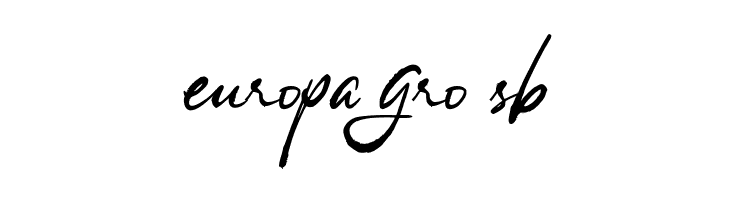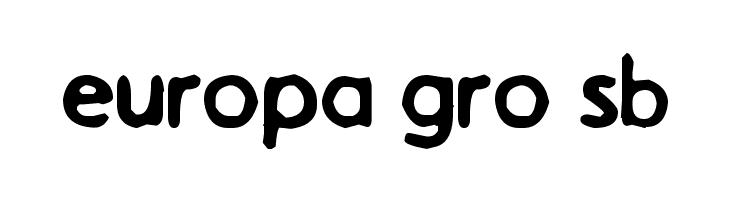
Oldstyle Small Caps HPLHS Font
A classic serif font with elegant, bold uppercase and consistent lowercase characters.
CameoAntique Font
A bold, decorative font with a vintage, three-dimensional style.
Catalogue Font
A playful, bold font with rounded edges and a hand-drawn style.
Angel Font
An ornate and decorative font with intricate swirls and embellishments.
OldStyle 1 HPLHS Font
A classic serif font with a vintage and elegant style.
AIFragment Font
A bold, geometric font with high contrast and a modern aesthetic.
Penelope Font
An ornate and decorative font with intricate swirls and embellishments.
Oldstyle Italic HPLHS Font
An elegant, classic italic font with a traditional and sophisticated style.
99 % OCCUPY Font
A bold, hand-drawn font with a playful and artistic style.
RusticBlackShadow Font
A bold, decorative font with a rustic, shadowed style and intricate detailing.
Fun Euro Original Condensed No. 1 [Demo] Font
A playful, hand-drawn font with a condensed and whimsical style.
2013 Demo Cadaver's Script Pre-release. Font
A bold, expressive script font with a hand-drawn, textured style.
dfdMiliciana Font
A bold, geometric font with a modern and impactful design.
ArrowheadLake Font
A bold, angular font with sharp, arrowhead-like serifs.
2013 Hexagonal Delight Heavy Italic Caps for PC Font
A bold, italic, gothic-inspired font with sharp, angular edges.
2013 Demo Hexagonal Delight Heavy Italic (Caps and numbers) for Mac Font
A bold, italicized font with sharp, angular strokes and a modern blackletter influence.
Pupil Caligraphic Font
A calligraphic font with fluid, hand-drawn strokes and an artistic appearance.
Kabbalah Sampler Medium Font
A hand-drawn, textured font with an ancient script feel.
Disco-Grudge Rounded (Apple) Medium Font
A playful, rounded font with a hand-drawn, casual style.